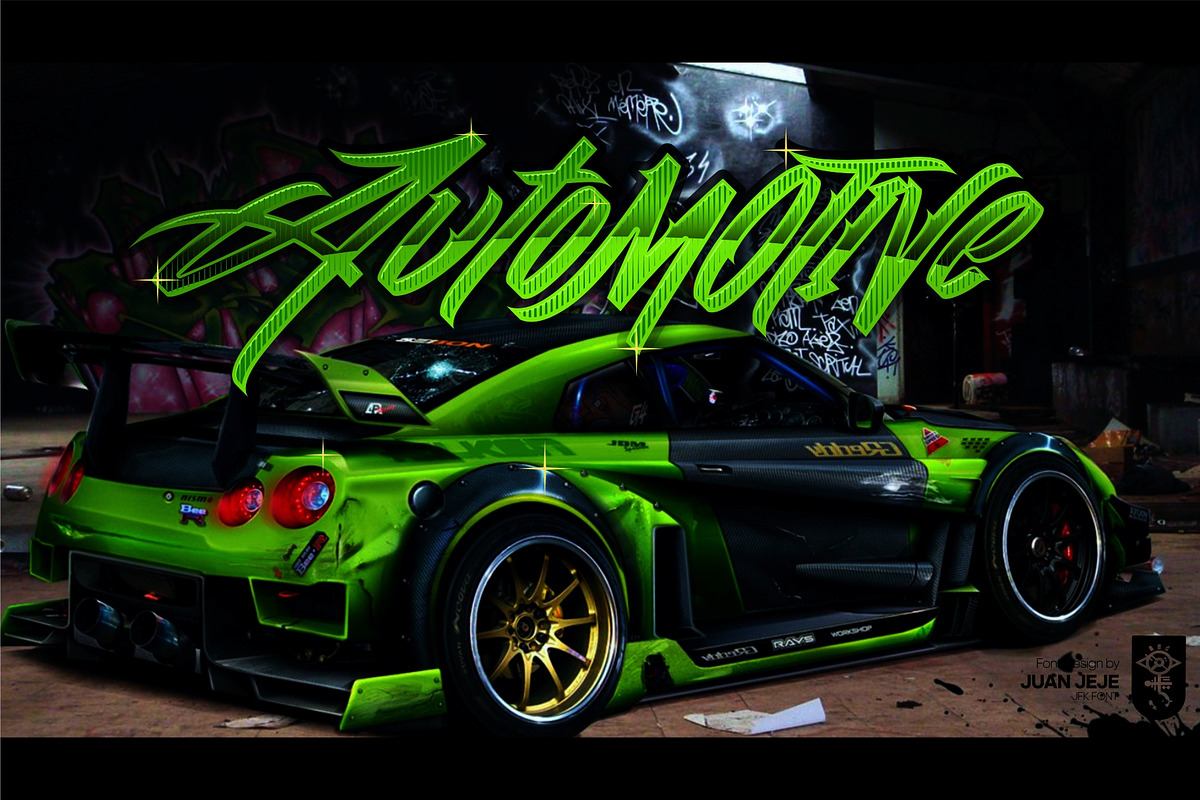
Wall Hunter II | Graffiti Tag Fonts Free Download
Wall Hunter II | Graffiti Tag Fonts Free Download brings raw street energy and urban expression straight to your designs. Inspired by real graffiti tags and hip-hop culture, this font is perfect for streetwear branding, music covers, skateboard graphics, event posters, and digital art that demands attitude and authenticity.
Wall Hunter II | Graffiti Tag Fonts Free Download captures the spirit of underground rebellion with wild strokes, edgy curves, and bold movement. It’s not just a font—it’s a voice from the streets, ready to make a visual impact in both print and digital spaces.